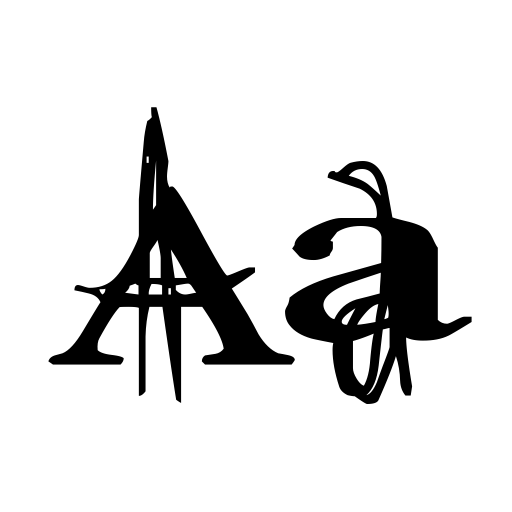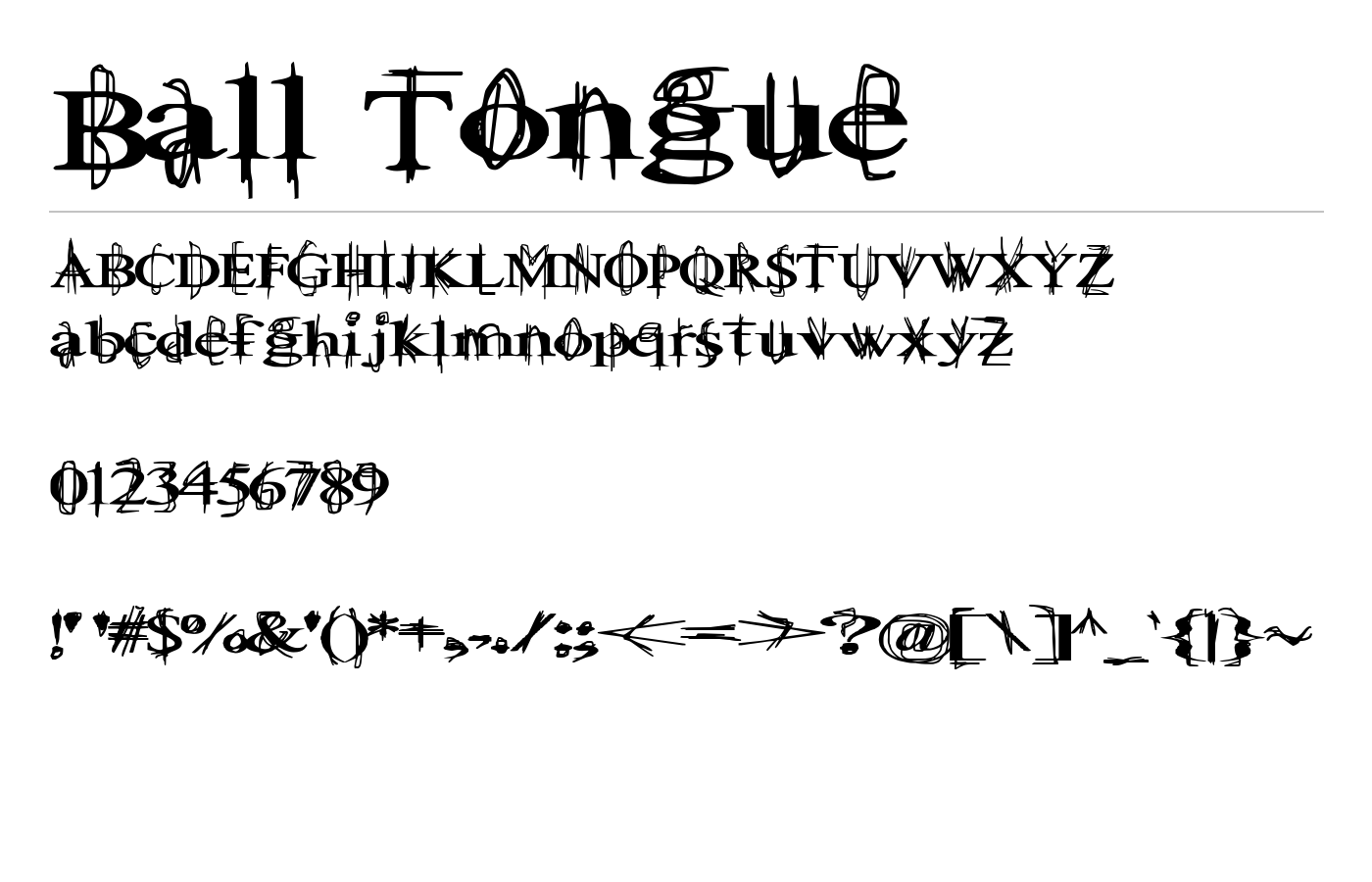
Ball Tongue is a highly decorative serif font with a chaotic, hand-drawn quality that blends traditional letterforms with an erratic, overlapping stroke style. Its unusual, distorted shapes create a striking, experimental look that suits edgy, artistic projects, making it ideal for avant-garde branding, posters, or album covers where unconventional expression is key. This font’s intense energy and distinct personality bring a bold, rebellious flair to creative design work.
Ball Tongue Font
About Ball Tongue Font